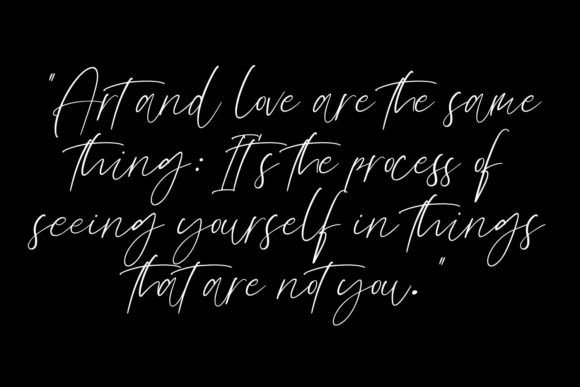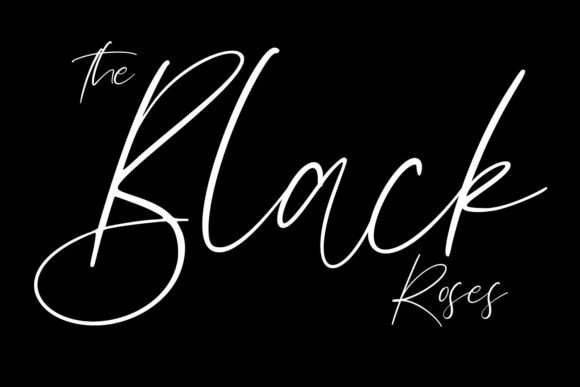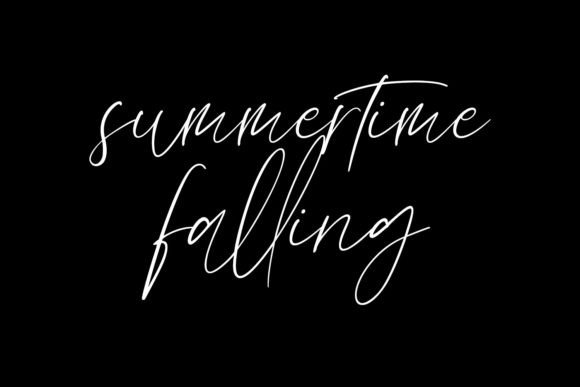
**Ray Brooks: A Sweet and Delicate Handwritten Font**
*Ray Brooks* is a charming and delicate handwritten font that radiates sweetness and elegance. With its dainty and joyful character, this font is a perfect choice for projects that require a romantic and personalized touch.
The defining feature of Ray Brooks is its graceful and tender style. The font’s characters are crafted with precision and finesse, exuding an air of sophistication and intimacy. Ray Brooks captures the essence of delicate handwriting, making it an ideal font for designs that aim to convey warmth and heartfelt sentiment.
One of the standout qualities of Ray Brooks is its versatility in evoking a range of emotions. Its delicate and romantic nature lends itself well to various design contexts, making it a versatile and meaningful choice for designers. Whether you’re working on wedding invitations, greeting cards, branding, or any project that calls for a touch of elegance, Ray Brooks delivers.
In wedding invitations, Ray Brooks shines as it encapsulates the essence of romance and love. Its delicate strokes and graceful curves evoke the feeling of a handwritten love letter, setting the perfect tone for a couple’s special day. Brides and grooms seeking a font that reflects the intimacy of their union will find Ray Brooks to be a fitting choice.
For greeting cards, Ray Brooks adds a touch of sophistication and personalization. Whether it’s a birthday card, anniversary card, or a heartfelt thank-you note, this font elevates the message, making it more meaningful and memorable. Recipients will appreciate the effort and sentiment conveyed through the elegant script.
In branding and logo design, Ray Brooks offers a unique and refined typographic option. Its graceful and distinctive style can help brands communicate their commitment to quality and personalization. It’s particularly suitable for businesses in the fashion, beauty, and luxury industries, where elegance and sophistication are paramount.
In stationery and letterhead design, Ray Brooks can make a lasting impression. Its delicate and joyful appearance can enhance the perceived value of correspondence, whether it’s formal business communications or personal letters. Using Ray Brooks can elevate the overall experience of sending and receiving letters.
Ray Brooks’s legibility is another one of its strengths. Despite its delicate appearance, the font maintains clarity and readability, ensuring that your message is conveyed effectively. This balance between style and legibility is what makes Ray Brooks a practical choice for a wide range of design applications.
In summary, *Ray Brooks* is a sweet and delicate handwritten font that adds an elegant and romantic touch to your design projects. Its versatility makes it suitable for wedding invitations, greeting cards, branding, and more. With its graceful and tender style, Ray Brooks helps you create designs that convey warmth, sophistication, and heartfelt sentiment, making it a meaningful and beautiful choice for various occasions.,